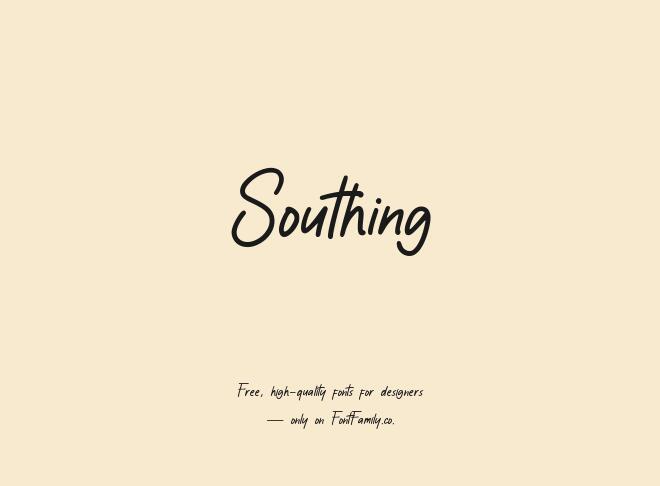
Southing Font
The Southing Font, a creation of the Creative Type Foundry, is a unique blend of modern elegance and handwritten style. Its delicate curves and well-balanced letters create a sophisticated yet approachable appeal. The font is perfect for a wide variety of design projects, including logos, wedding invitations, social media posts, and more. The Southing Font offers a fresh perspective in the world of typography, standing out among other fonts due to its distinctive style. It's a great choice for designers seeking to add a touch of charm and elegance to their designs. The font is free for personal use, making it an excellent resource for hobbyist designers and professionals alike. The Southing Font, with its modern yet timeless character, is sure to make your designs stand out.